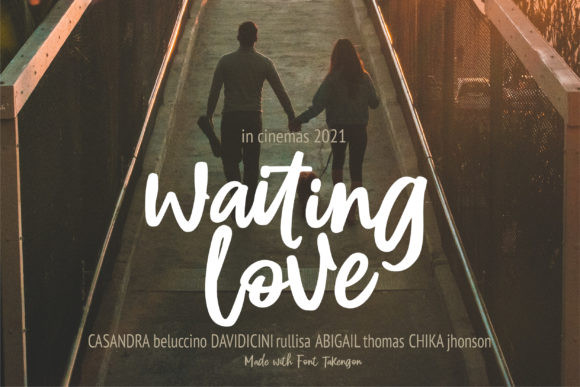
TAKENGON Font
Takegon is a fun, urban styled handwritten font. Irrespective of the topic, this font will be an incredibly asset to your fonts’ library, as it has the potential to elevate any creation.